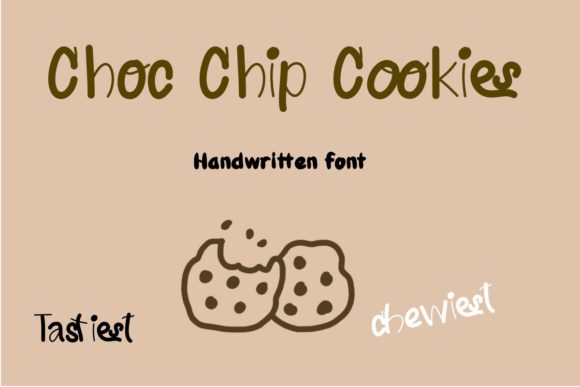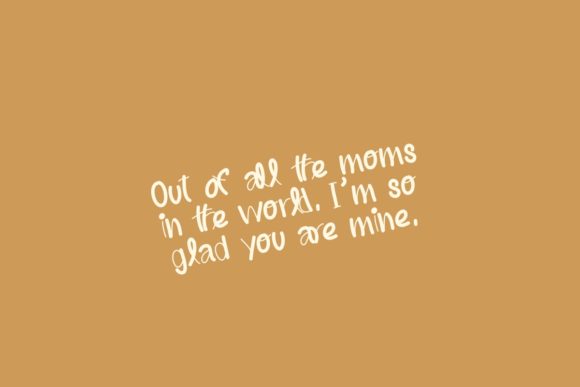
About Choc Chip Cookies Font
Choc Chip Cookies is a sweet and friendly handwritten font. Its natural and unique style makes it incredibly fitting to a large pool of designs.